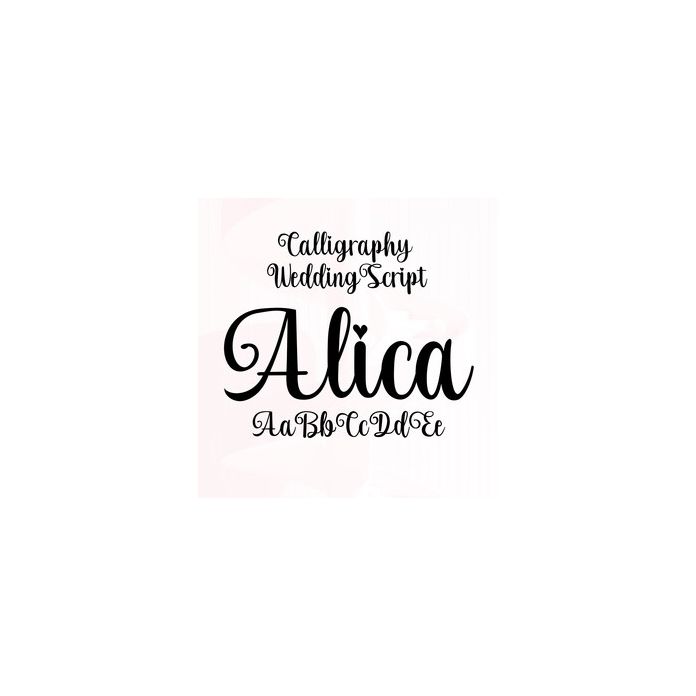
Alica Beautiful and vibrant handwriting style, this is the original product of handwriting, so uniformly used in today's design models. you can see and match with your big imagination!